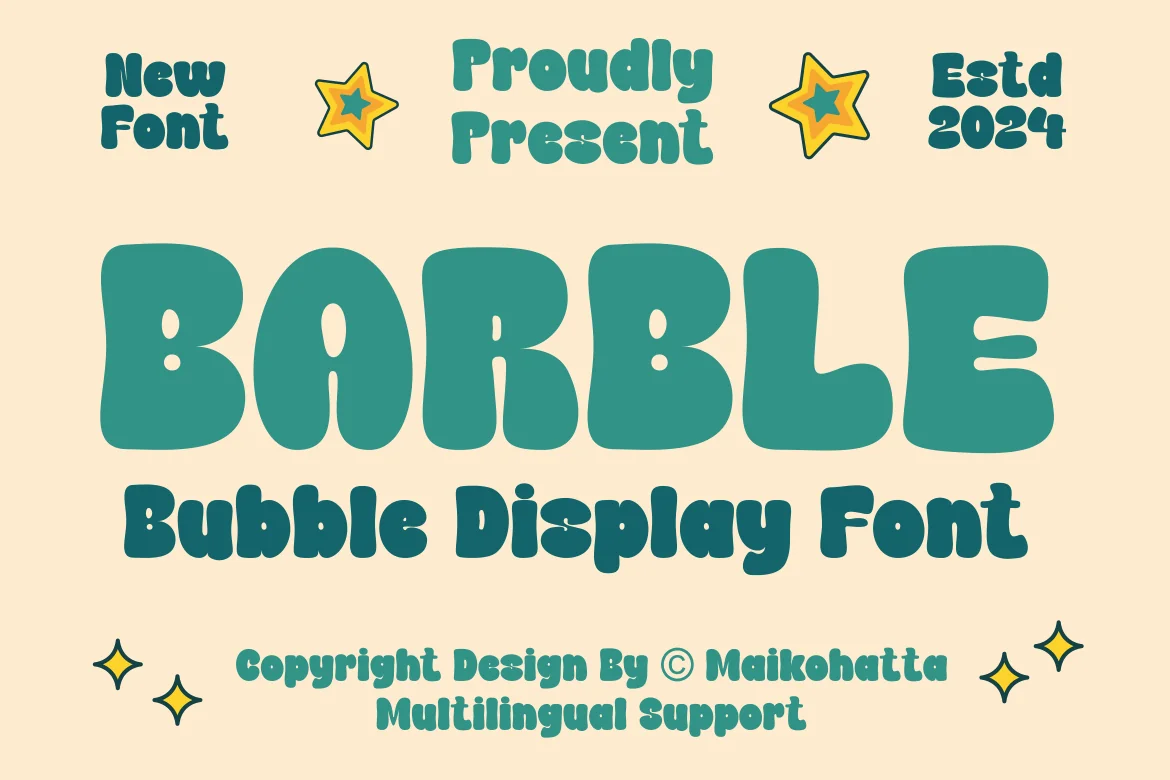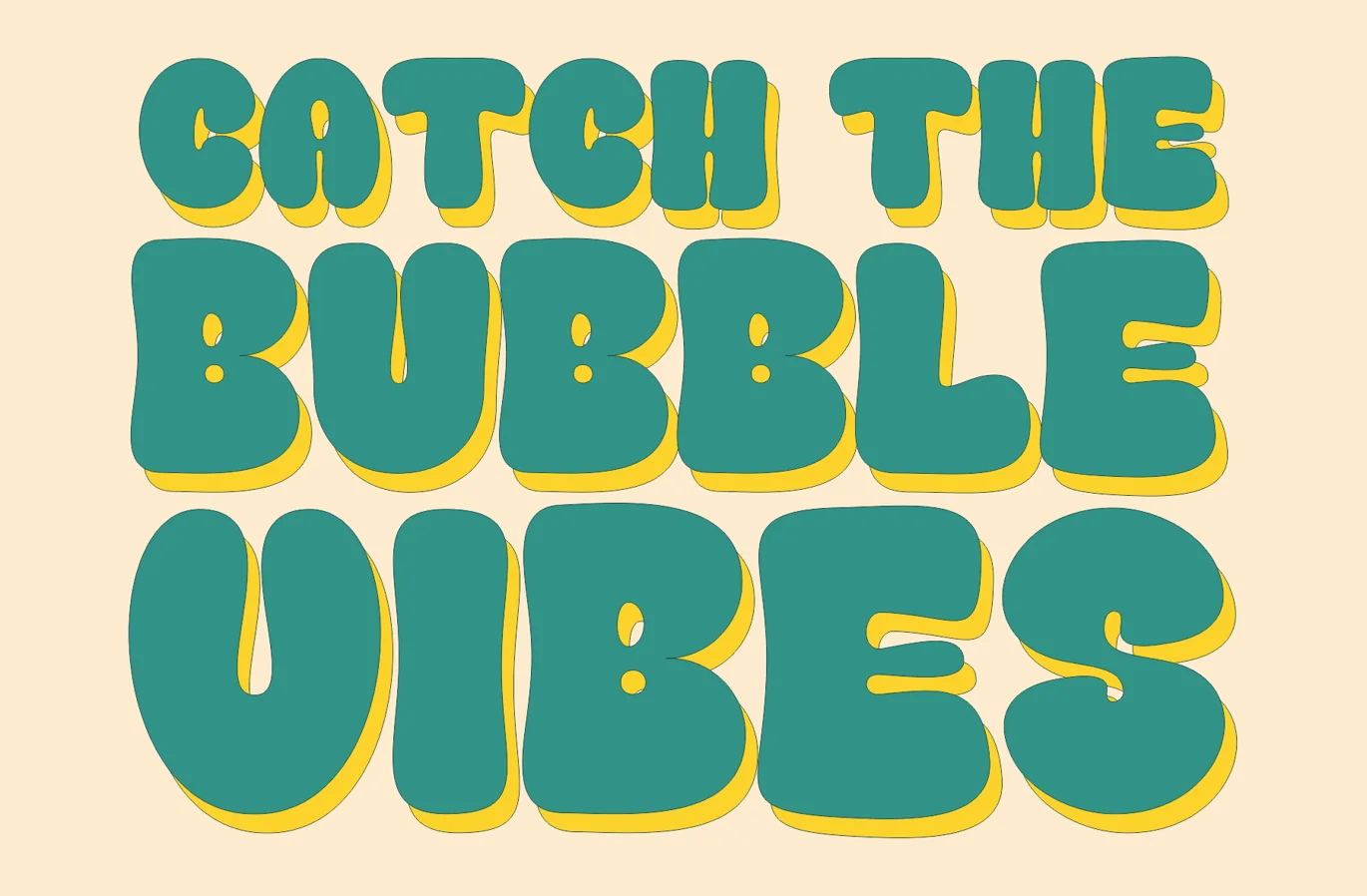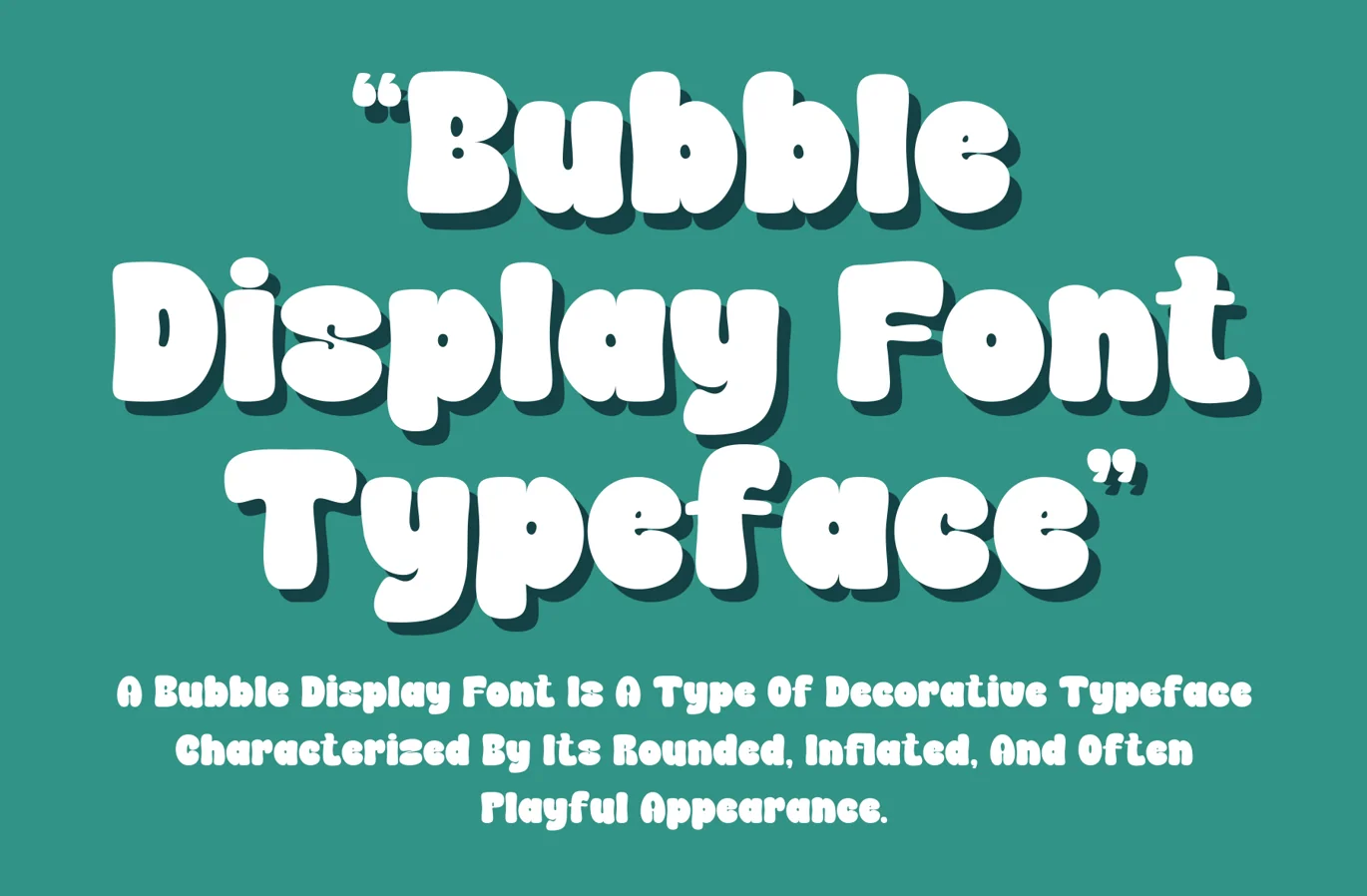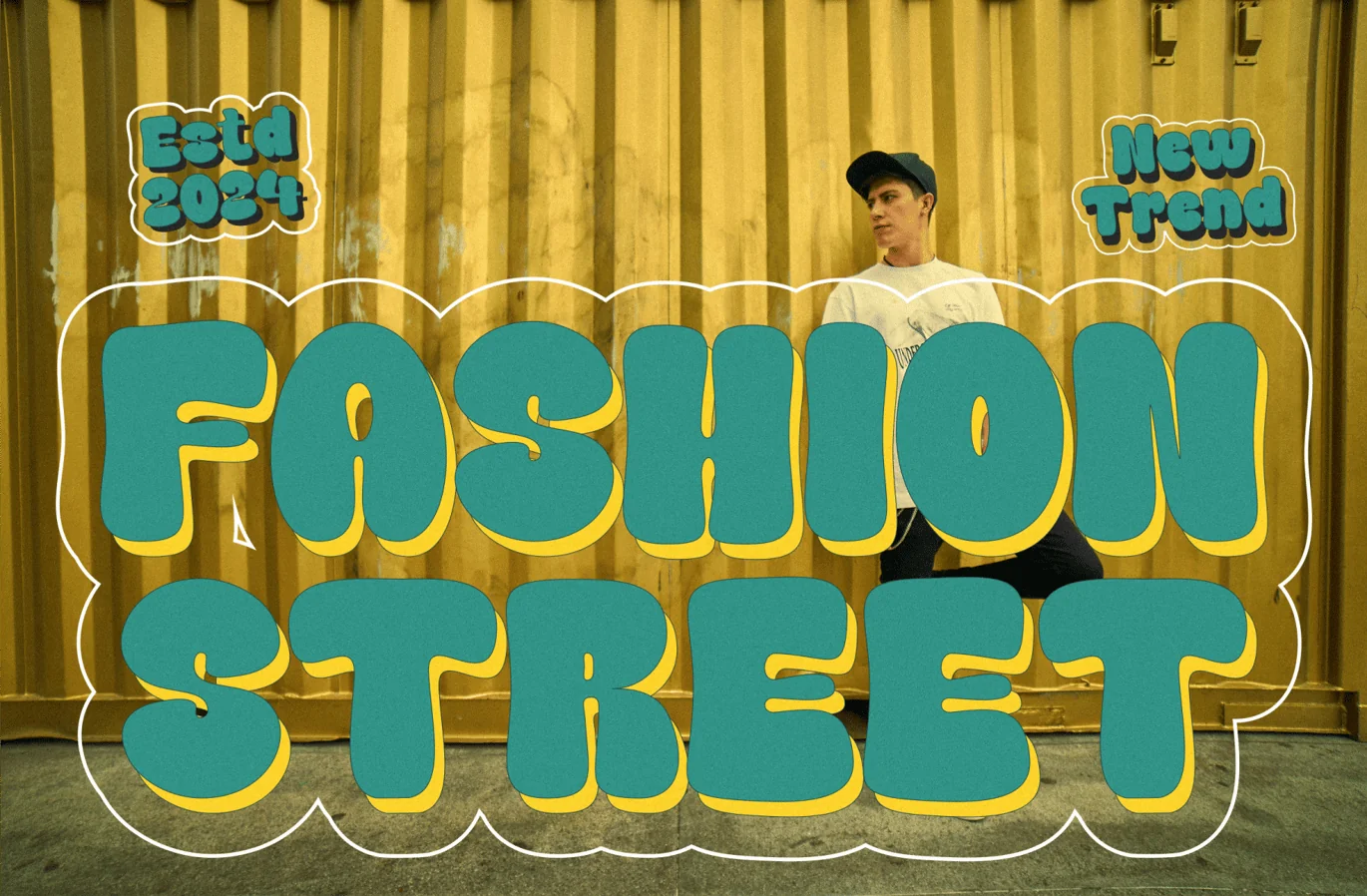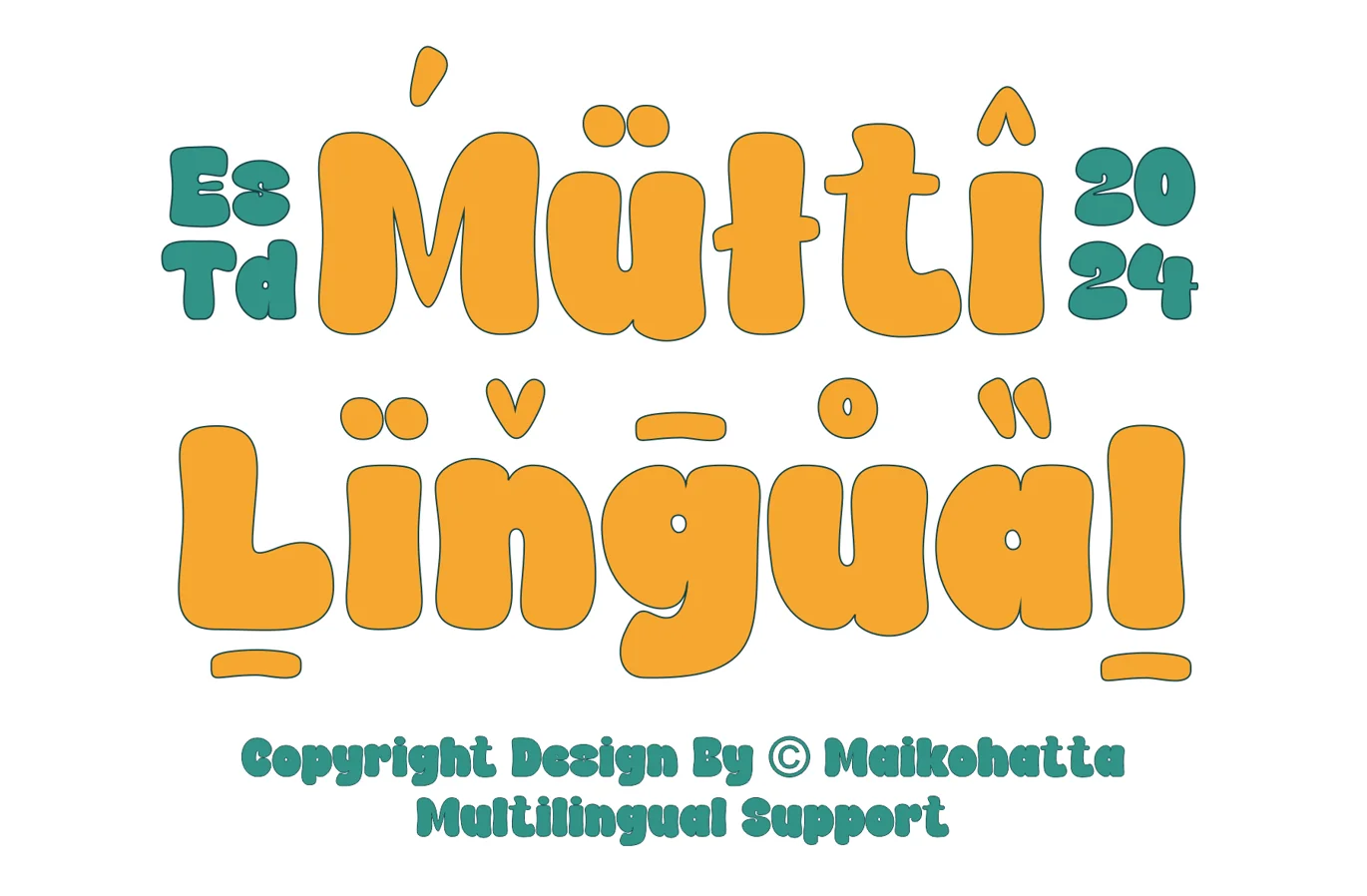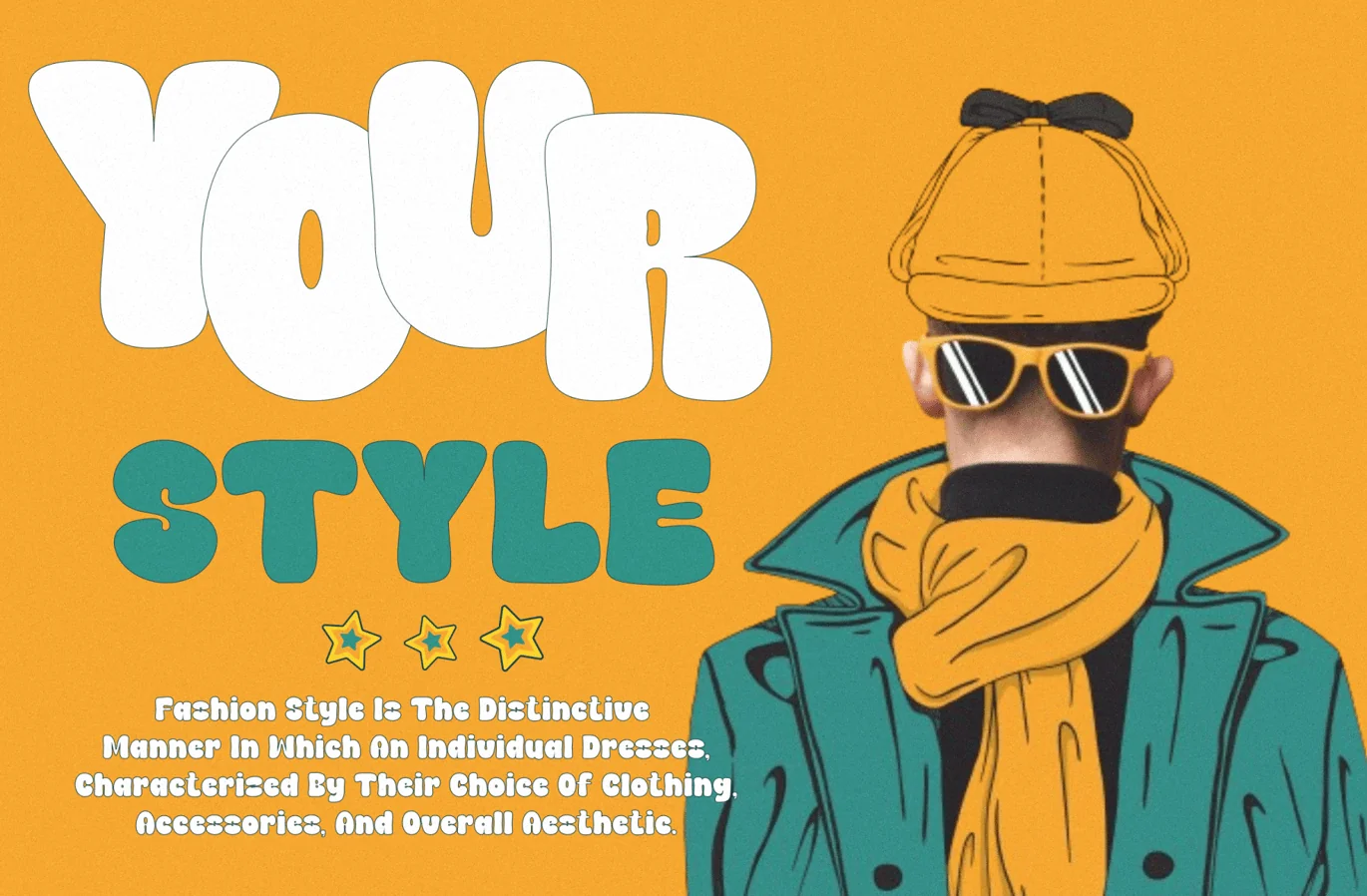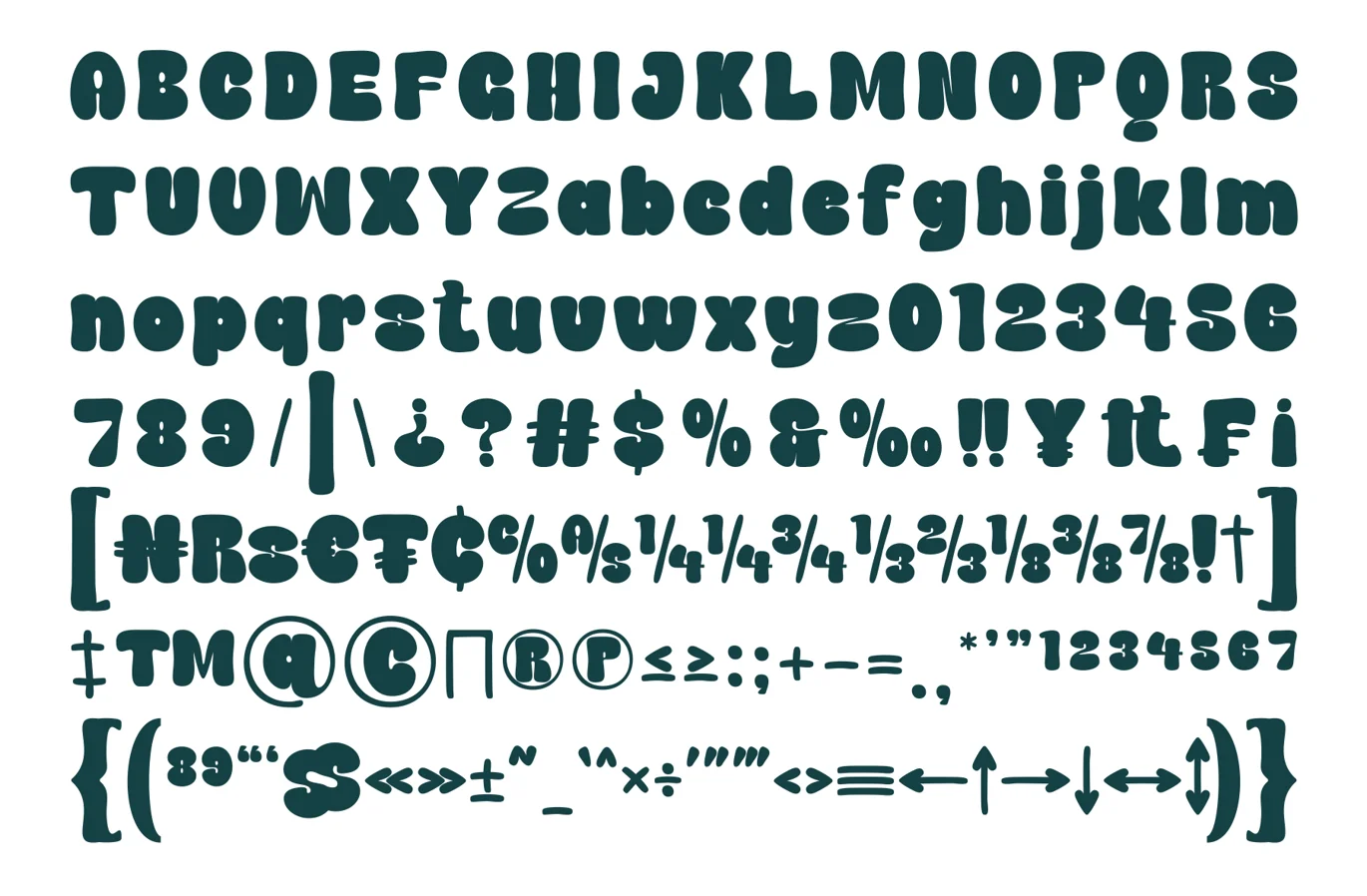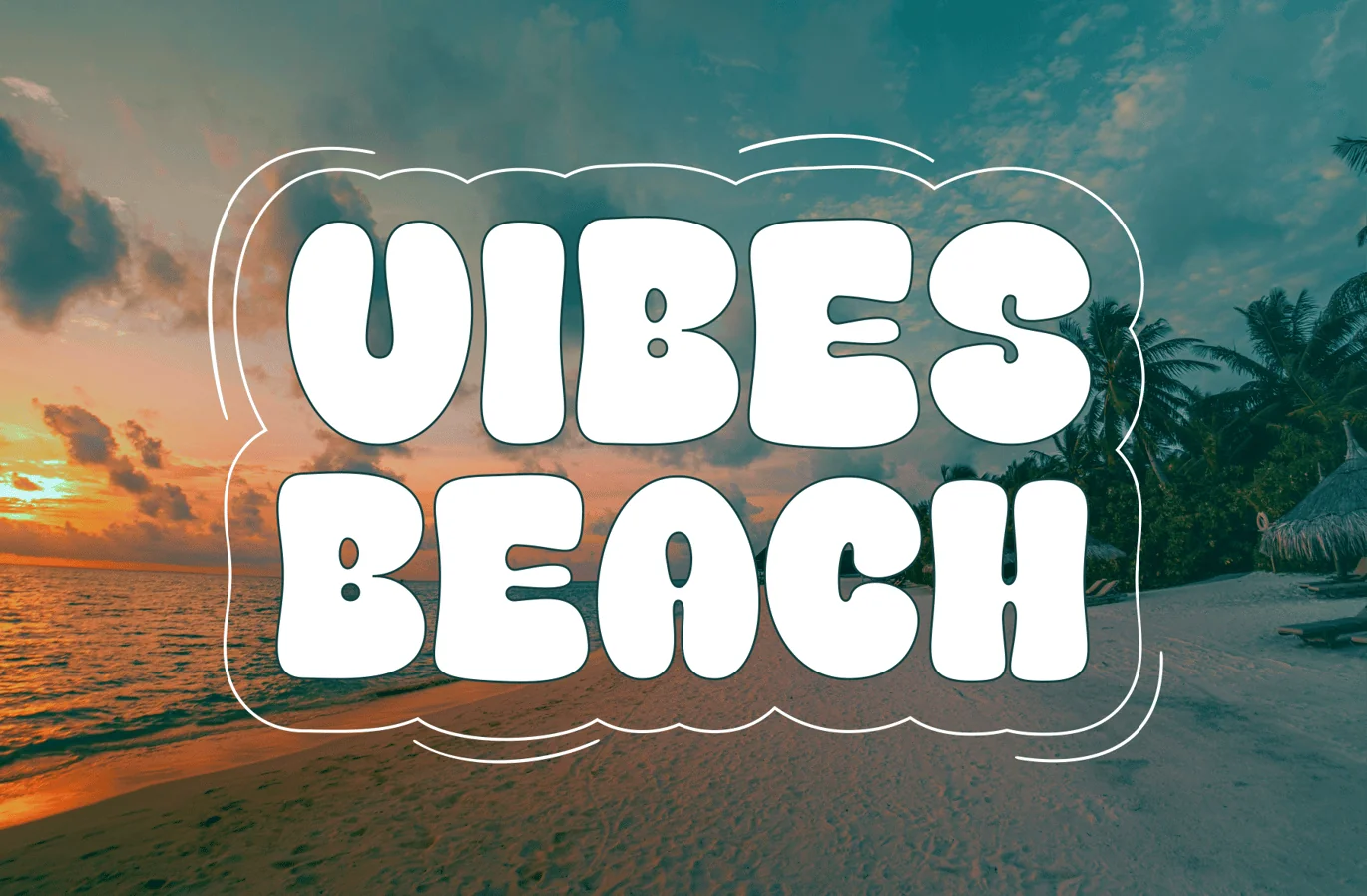
Barble – Bubble Display Font
Introducing our new product Barble – Bubble Display Font
This font has round and wide letter shapes with curved corners, giving a soft and friendly impression. Because of this, this font is often chosen for designs aimed at children or those with a playful nature, as it conveys a more youthful and cheerful feel.